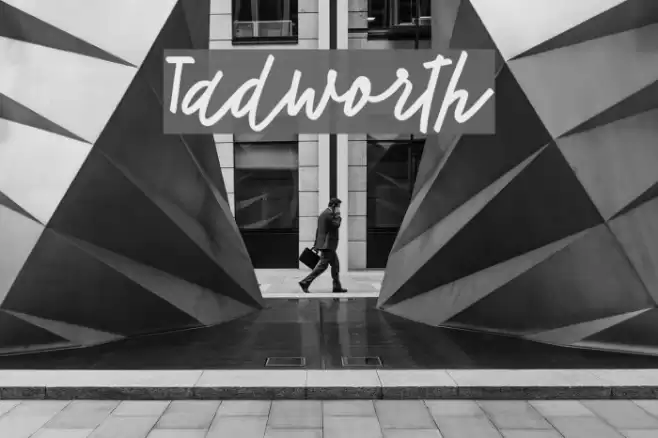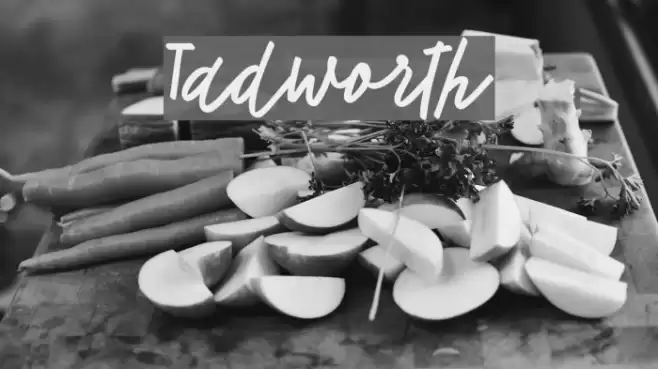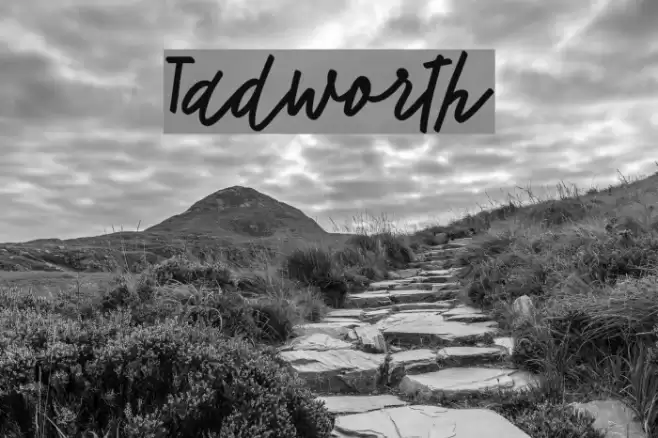
Tadworth Font
Tadworth Description
This font features a lively and dynamic script style, characterized by its fluid and connected letterforms. The uppercase letters exhibit a bold and confident presence, while the lowercase letters maintain a consistent flow with elegant curves. The strokes are moderately thick, providing a balanced contrast that enhances readability. The overall appearance is both casual and sophisticated, making it suitable for a variety of design applications. The font's playful yet refined nature makes it ideal for projects that require a personal touch.
A dynamic script font with fluid, connected letterforms and moderate contrast from Uncategorized fonts.
- Proposed Projects: This font is perfect for branding, invitations, greeting cards, and social media graphics where a personal and elegant touch is desired.
- Use Case: Logos, Headlines, Invitations